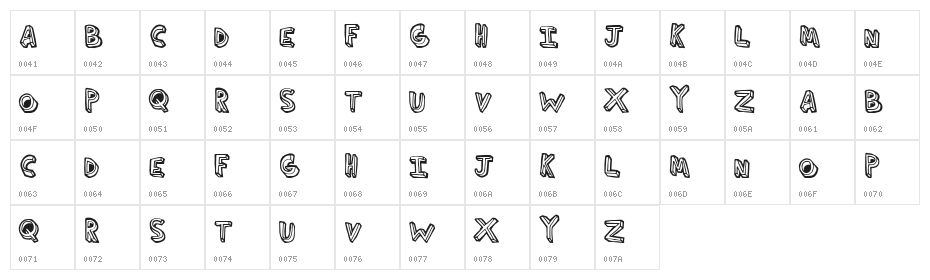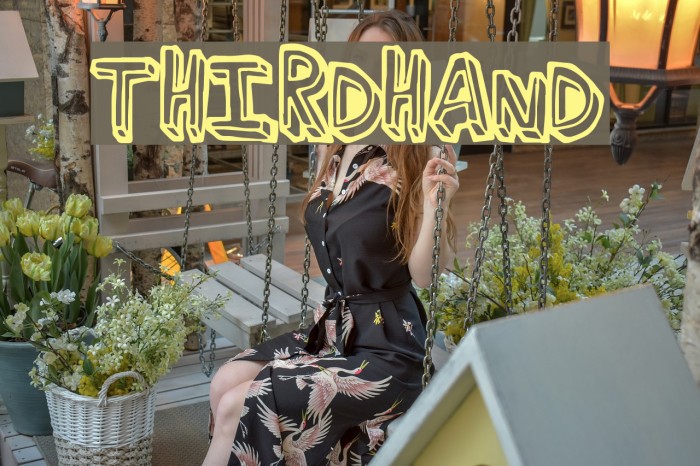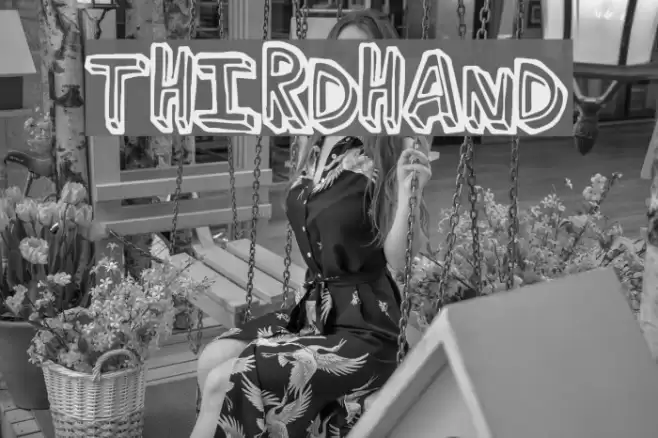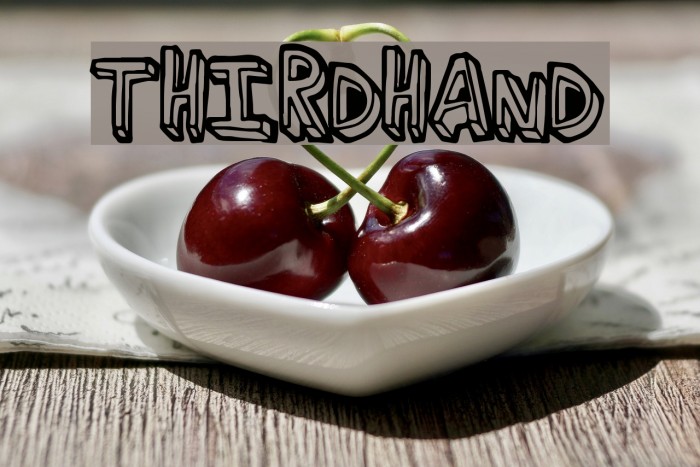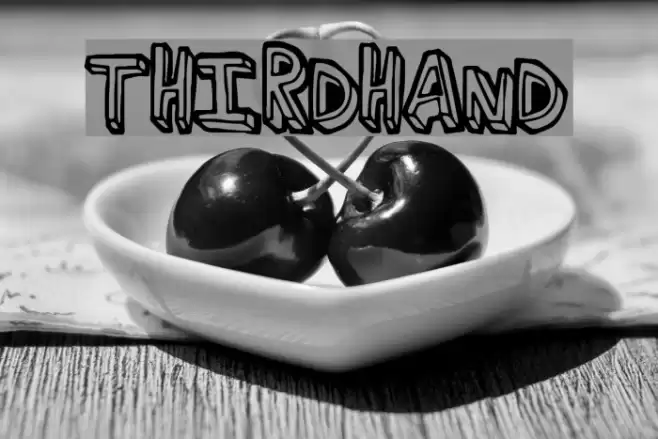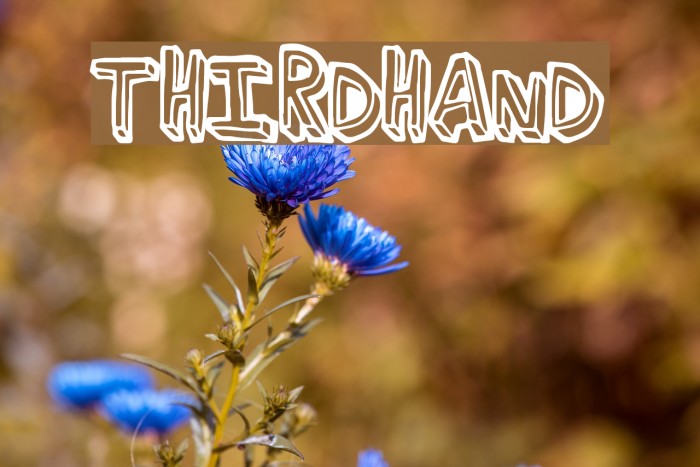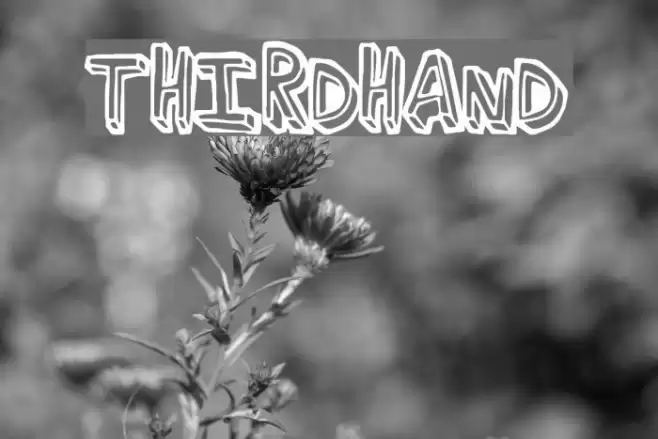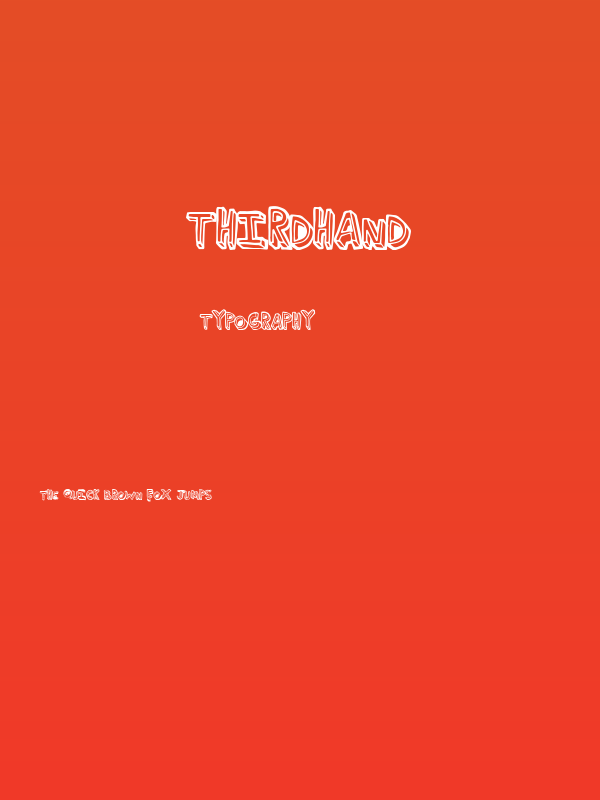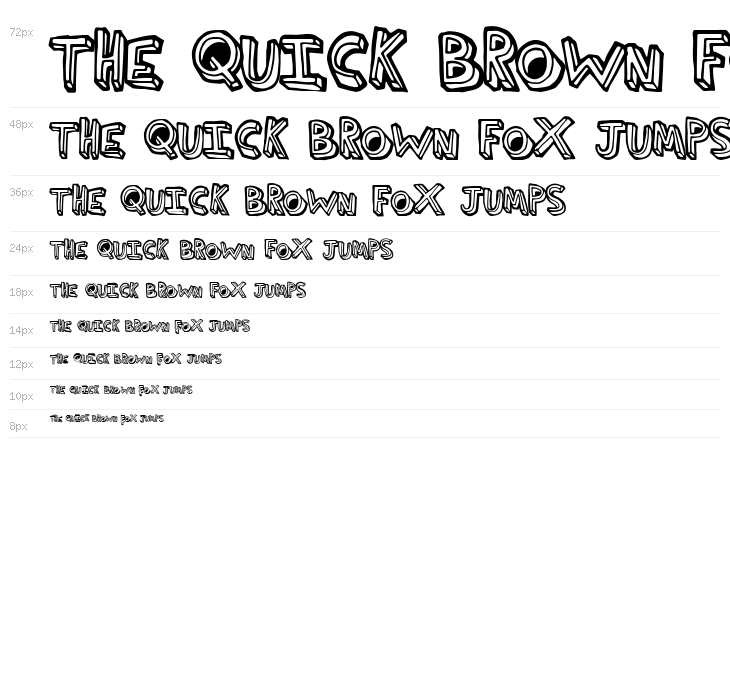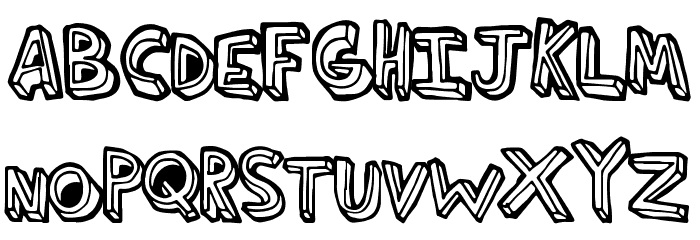
ThirdHand Font
ThirdHand Description
This font features a bold, playful, and dynamic style with a three-dimensional effect. The letters are outlined with a thick black stroke, giving them a cartoonish and lively appearance. Each character appears to be slightly tilted, adding to the whimsical and informal feel. The font's design is reminiscent of hand-drawn graffiti, making it stand out with its unique and artistic flair. The uppercase and lowercase letters maintain a consistent style, with exaggerated curves and angles that enhance its visual impact.
| Overall Style | Playful, Cartoonish, Artistic |
| Proposed Projects | Ideal for comic books, children's book covers, playful branding, posters, and creative advertisements. |